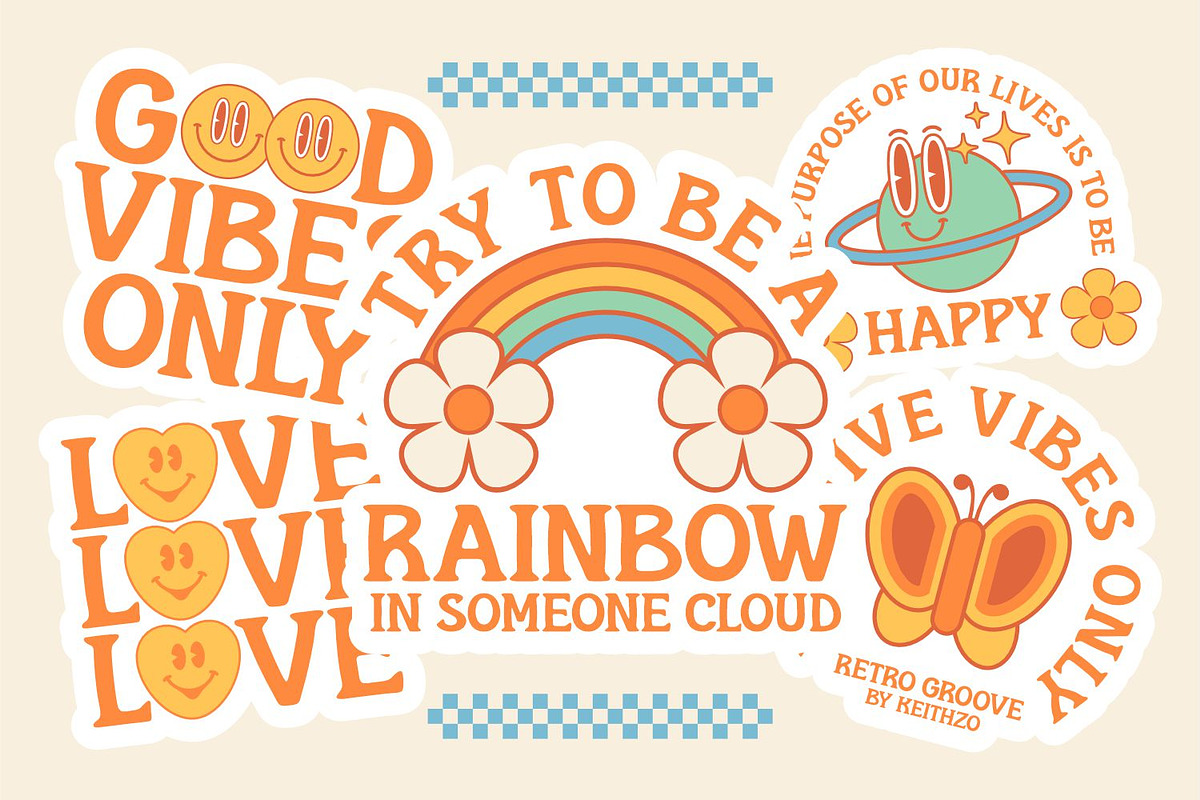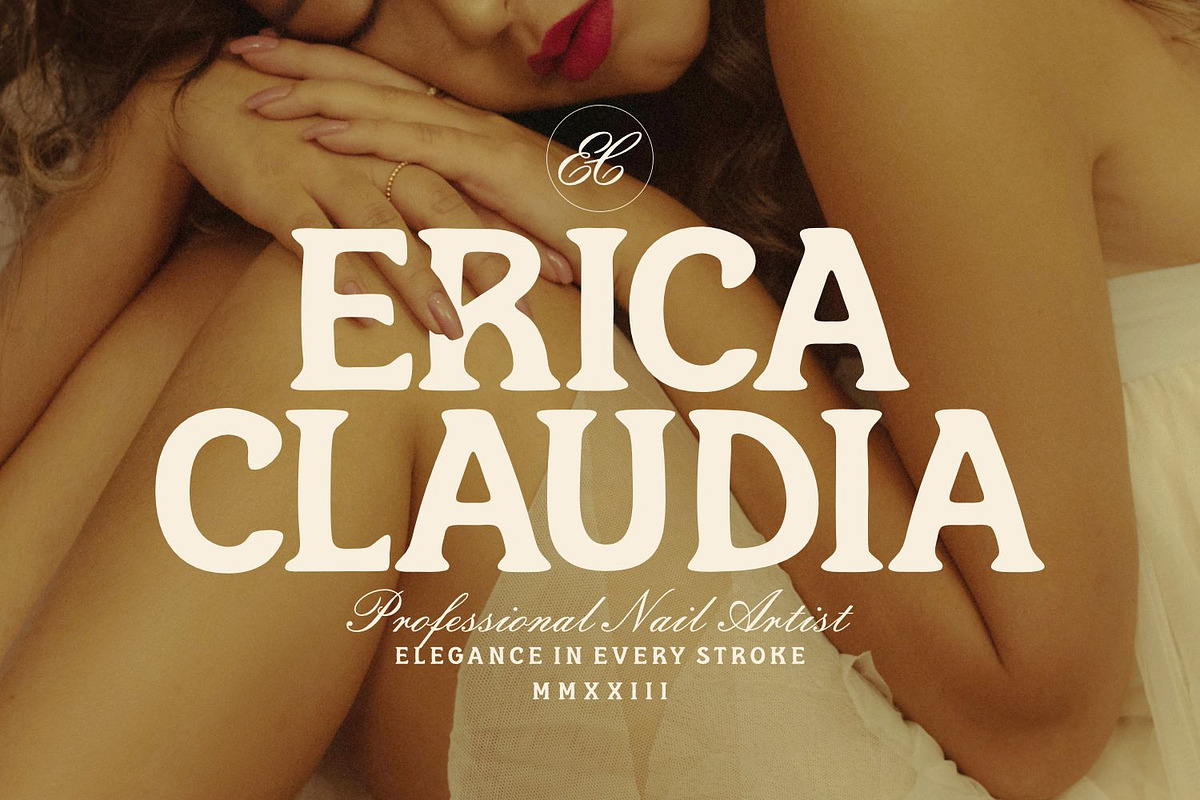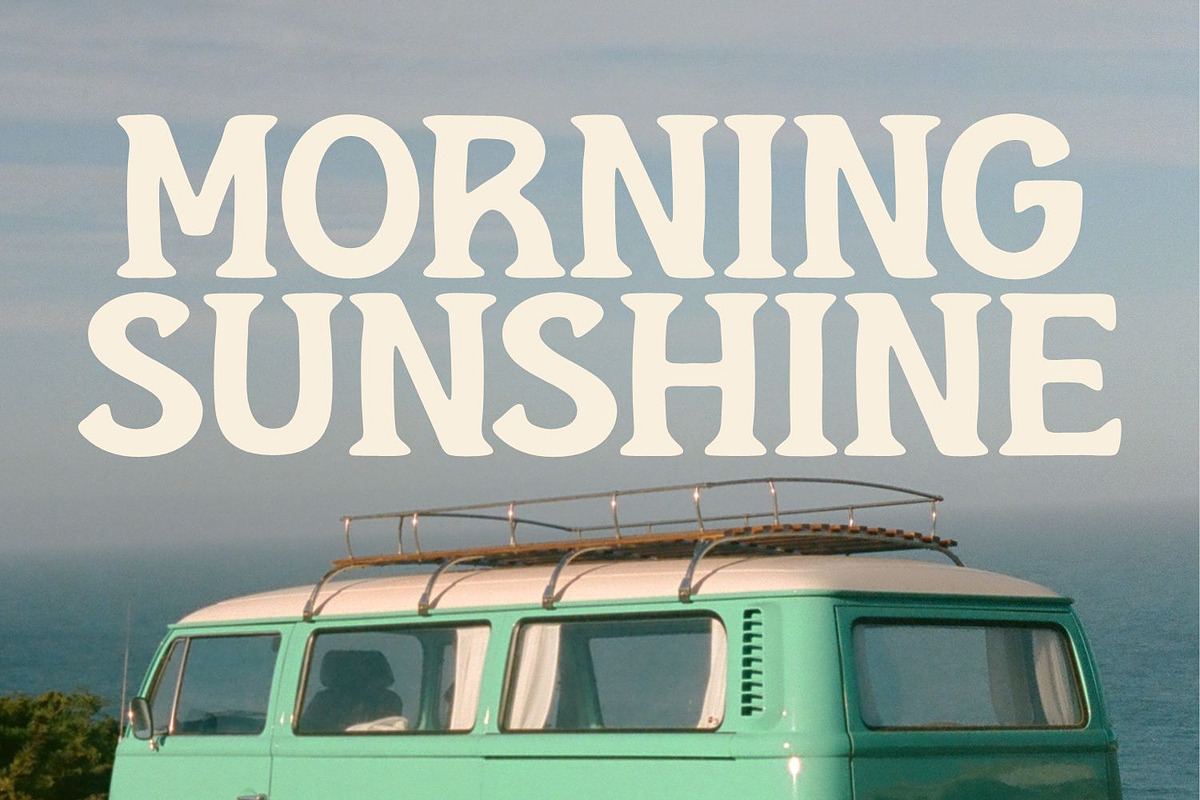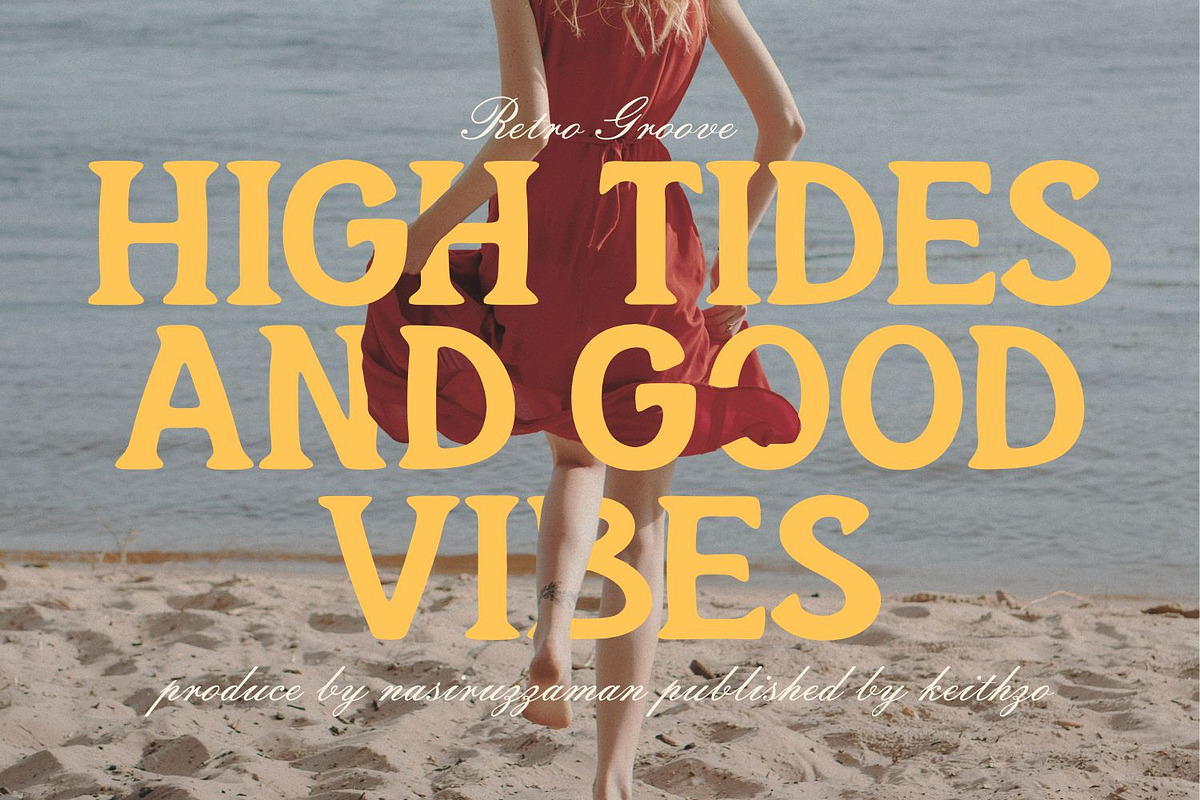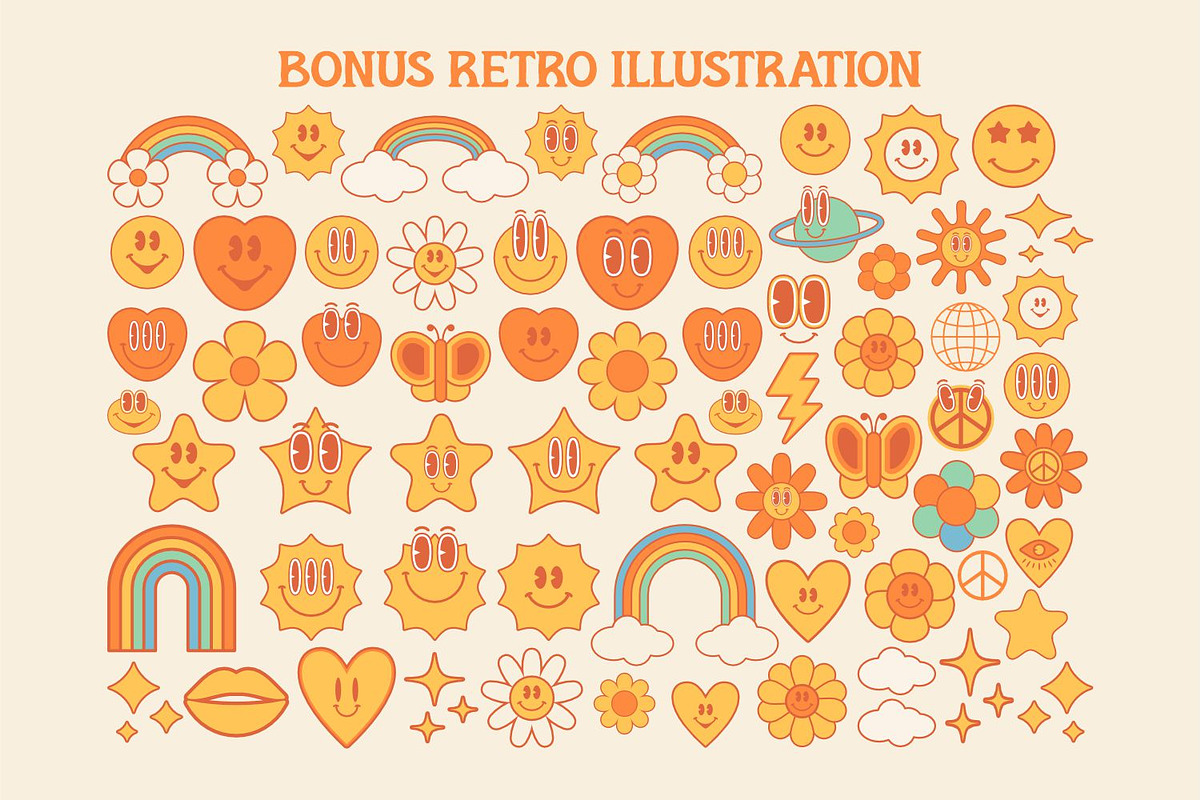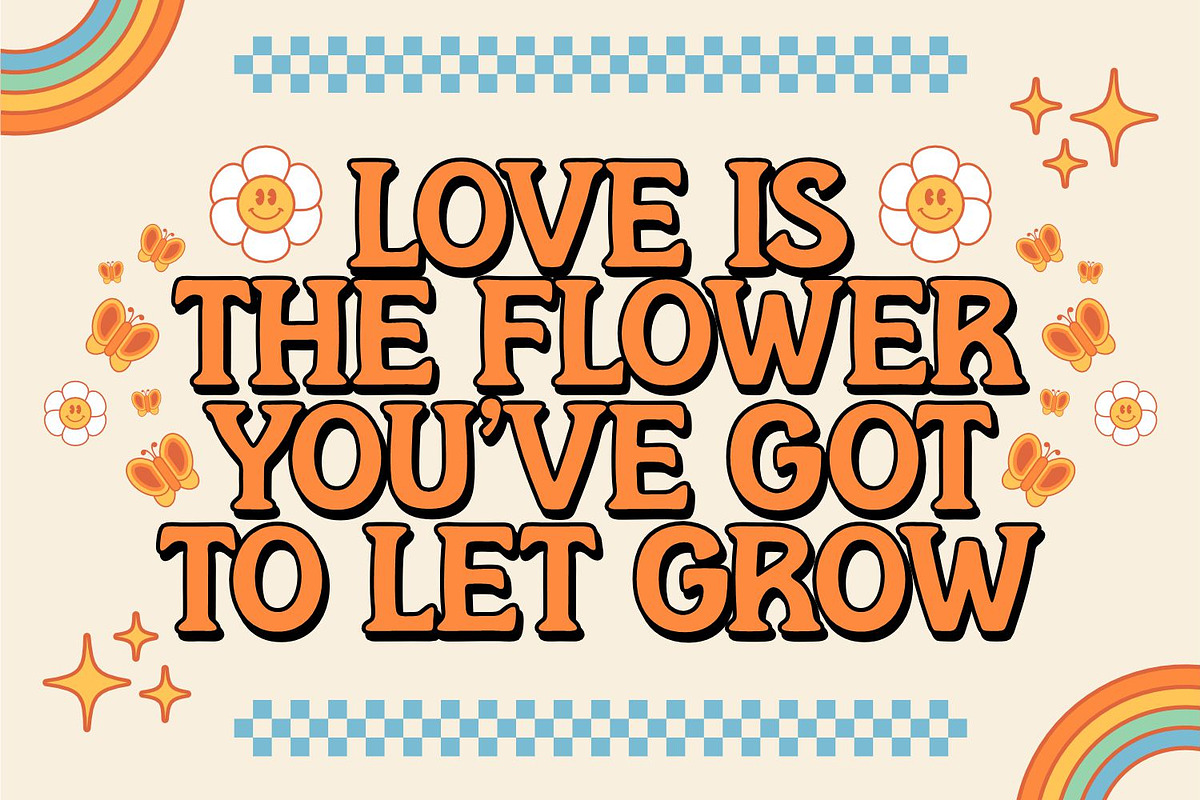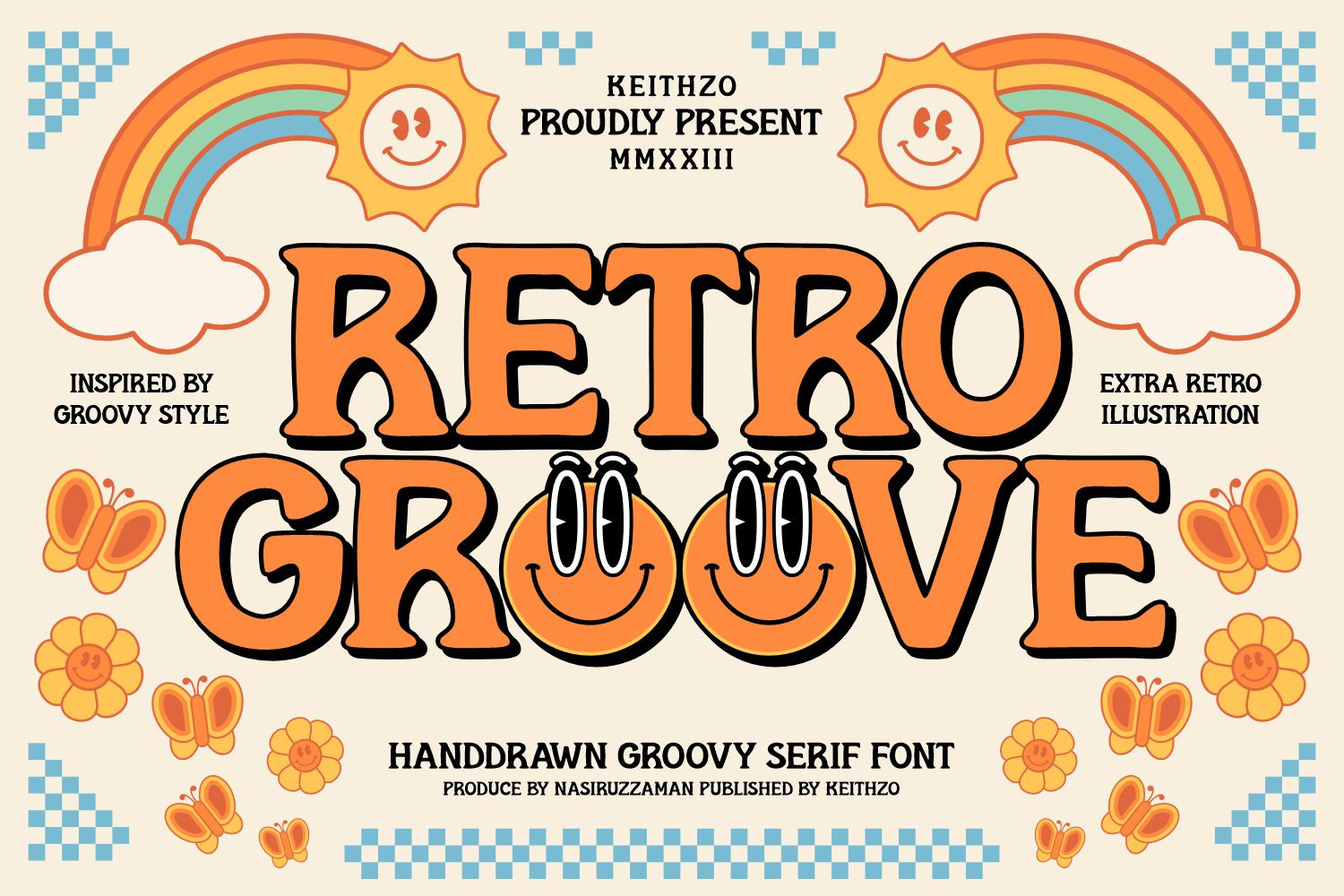
Retro Groove - Retro Font
Retro Groove is a funky and bold display font with a 70s-inspired vibe. Its playful and curvy letterforms feature wavy lines and unexpected angles that create a sense of movement and rhythm. Perfect for vintage-themed designs, Retro Groove is versatile enough to be used in posters, logos, and headlines that demand attention and personality.
All Caps Character
Stylistic and Ligatures
Accented characters
Multiple Languages Supported